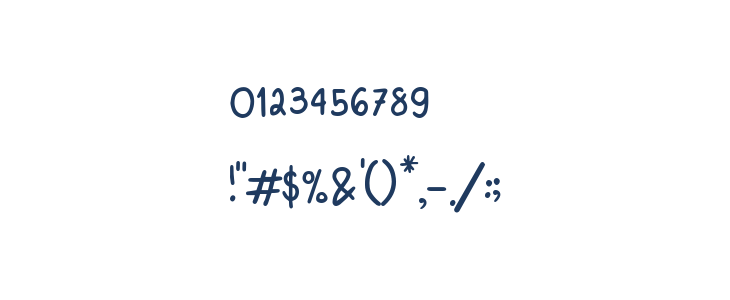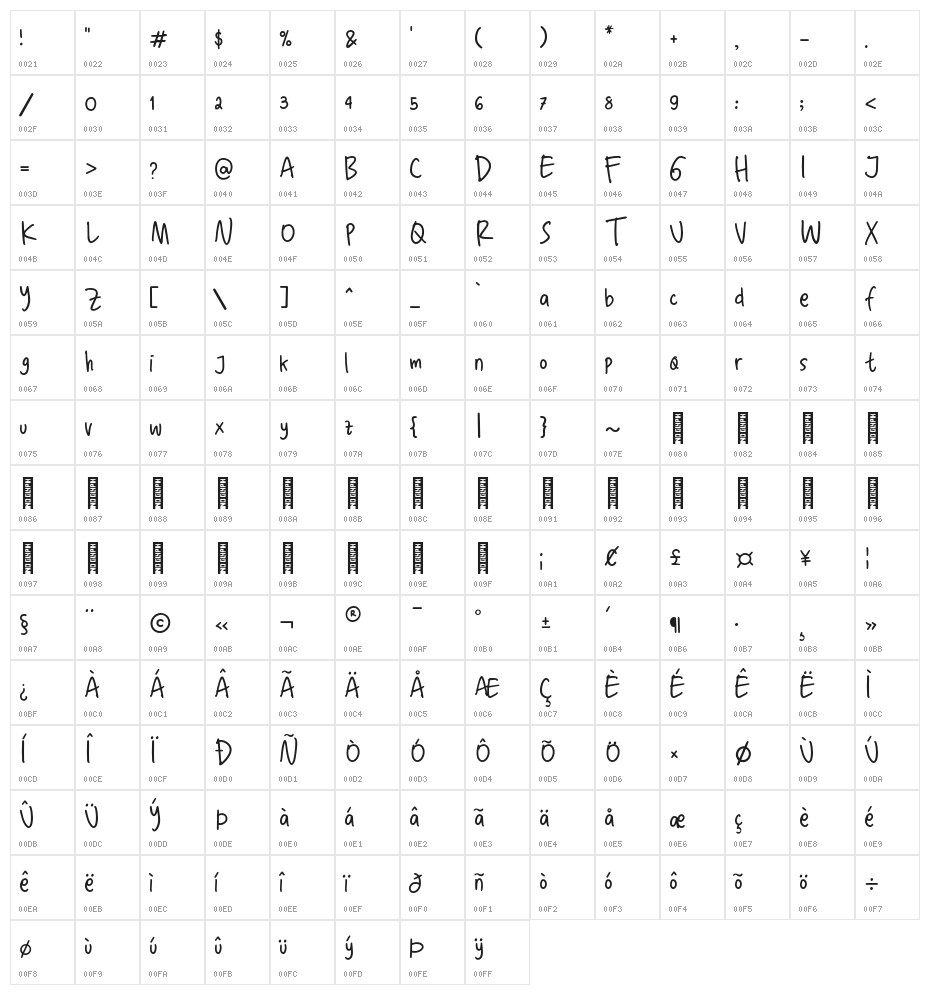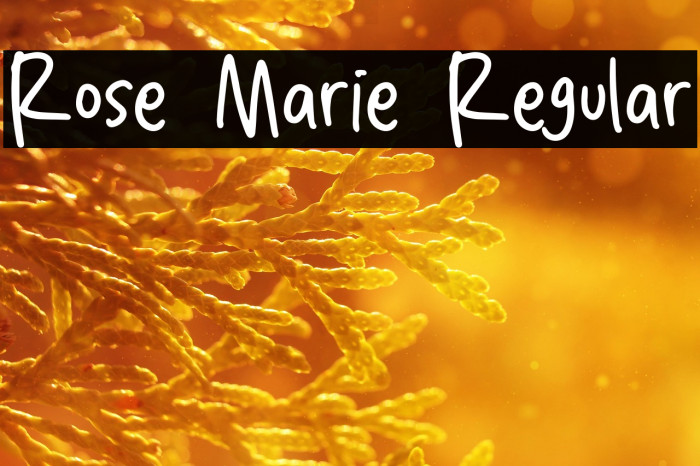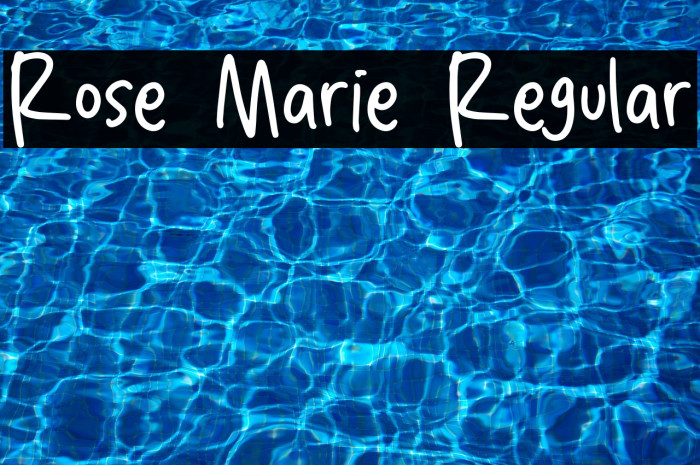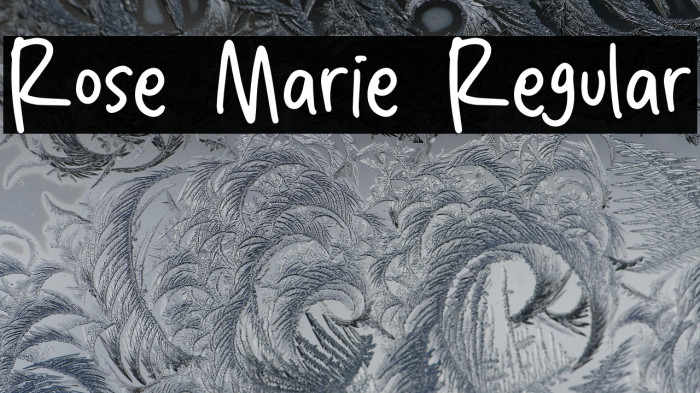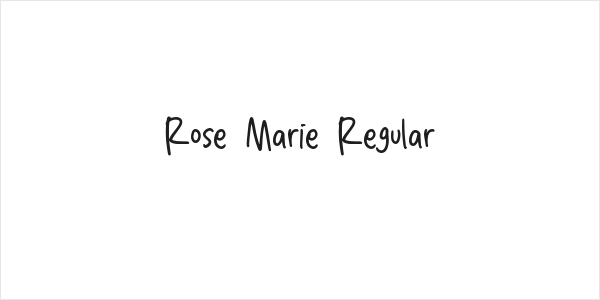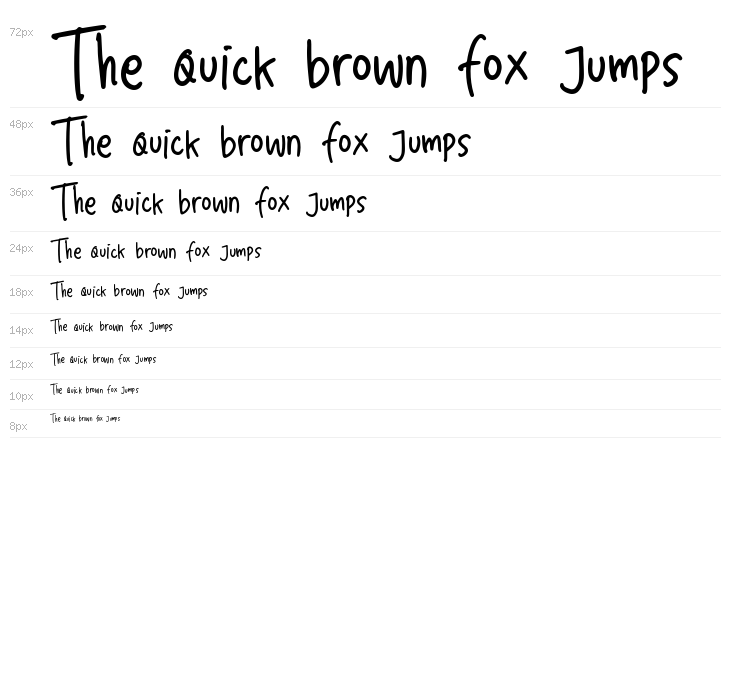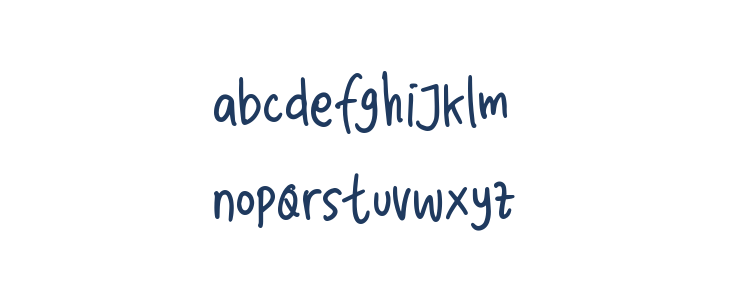
Rose Marie Regular Font
Rose Marie Regular Description
This font exudes a playful and casual handwritten style, characterized by its irregular strokes and informal appearance. The letters are slightly slanted, giving a dynamic and lively feel. The uppercase and lowercase letters maintain a consistent flow, with rounded edges and a friendly demeanor. The numerals and special characters complement the alphabet with the same whimsical touch, making it suitable for projects that require a personal and approachable tone.
| Use Case | Headlines, Informal text, Personal projects |
| Proposed Projects | Ideal for greeting cards, children's books, personal blogs, and informal branding projects. |